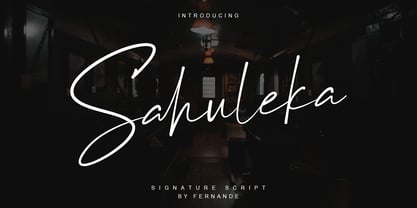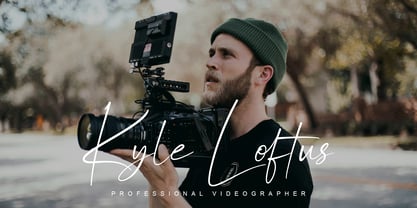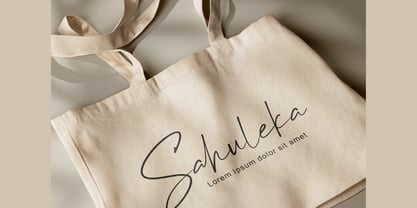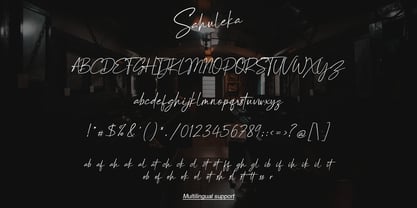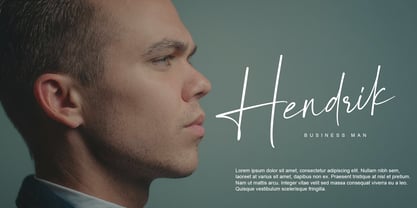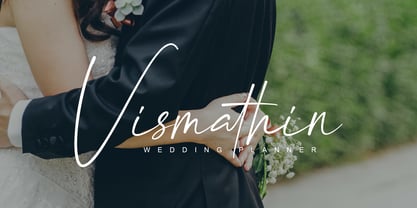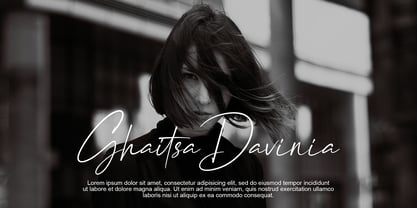
Sahuleka Signature
by Fernande
The Sahuleka Signature Font Family was designed by Angga Fernandi and published by Fernande. Sahuleka Signature contains 1 styles. More about this family
Unveiling Sahuleka, a refined script typeface that combines elegance, sophistication, and contemporary handwritten allure. Embodied within its fluid characters and sleek curves, lies a sense of luxury, intimacy, and professionalism. Sahuleka finds its purpose in logo creation, digital signatures and branding, effortlessly extending an artistic and stylish breath to invitations, or any project begging for a dash of creative finesse. Savor the luxury of artistic sophistication with the Sahuleka font.
Designers: Angga Fernandi
Foundry: Fernande